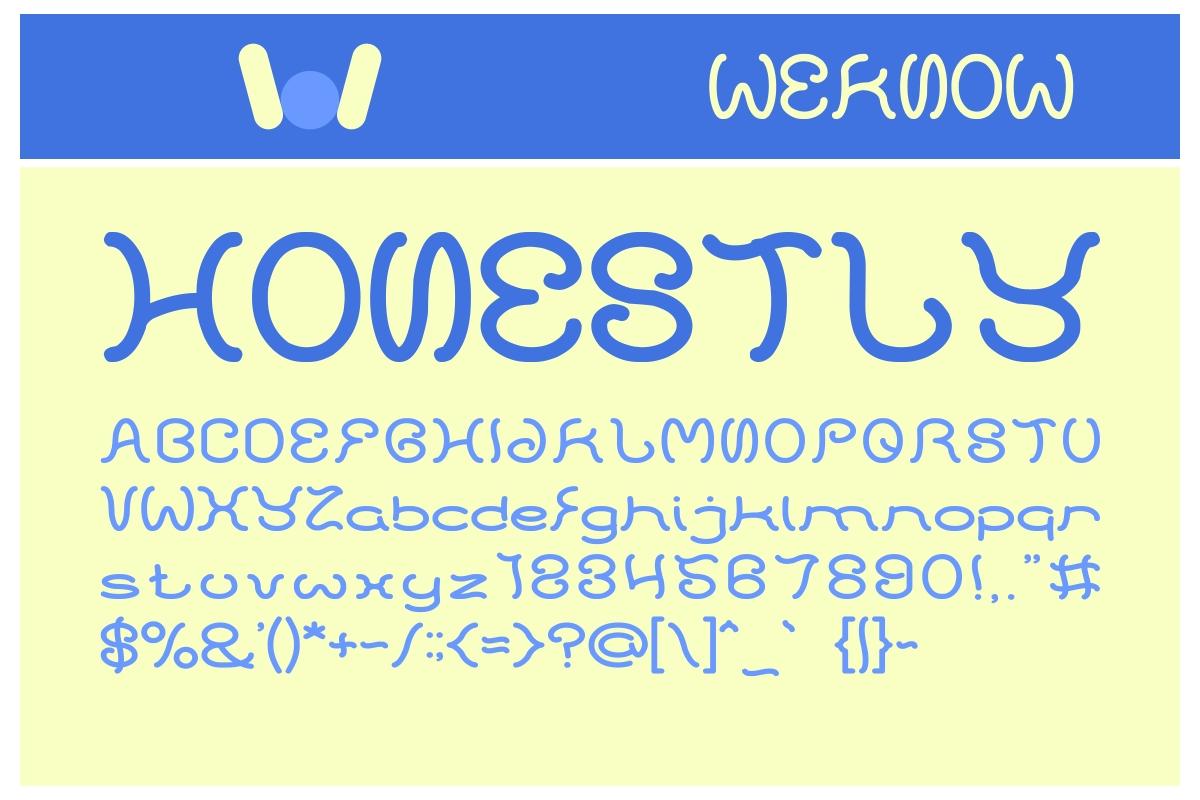
Honestly Font Description
Honestly is a fancy display font, ideal for film, magazines and book covers, posters and so much more. It is suitable for creating any branding, product packaging, invitation, quote, t-shirt, label, poster, logo that you wish to develop.